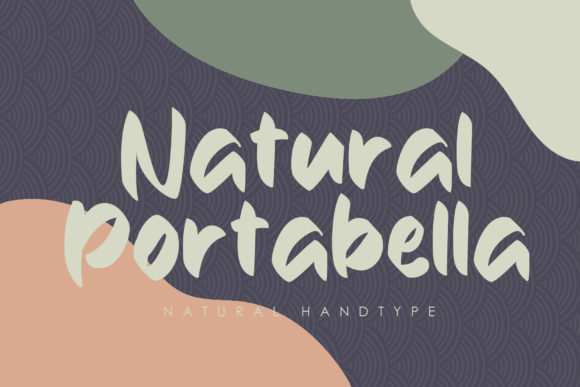
Step into the world of Natural Portabella, a captivating display font crafted by the ingenious minds at Eifets. This extraordinary font emanates an aura of casual friendliness, inviting you to delve into a realm of creative possibilities.
With its effortless readability and playful charm, Natural Portabella is the ideal font to breathe life into your artistic endeavors. Whether you're a seasoned designer seeking to elevate your digital creations or a crafting enthusiast seeking a font that resonates with warmth, Natural Portabella has the power to transform your visions into tangible masterpieces.
Picture this: a handmade greeting card adorned with heartfelt messages, rendered in the enchanting strokes of Natural Portabella. Your words dance across the paper, carrying sentiments of love, friendship, and joy. The font's inherent charm adds a personal touch, making each card a unique expression of your emotions.
Or perhaps you're a digital artist, weaving intricate designs and captivating visuals. Natural Portabella becomes your trusted companion, effortlessly adapting to your creative style. Its versatility knows no bounds, whether you're crafting logos that demand attention, designing social media graphics that pop, or creating presentations that leave a lasting impression.
The world of Natural Portabella extends beyond the digital realm, beckoning you to explore its boundless potential in the world of physical creations. Imagine hand-painted signs, bursting with vibrancy and personality, beckoning customers to your charming storefront. Or envision personalized t-shirts, each one a canvas for your unique expression, spreading joy and individuality wherever they go.
Natural Portabella is more than just a font; it's an invitation to unleash your creativity, to embark on a journey where imagination knows no limits. Its casual elegance and disarming friendliness make it the perfect font for any occasion, any project, any dream. Embrace the allure of Natural Portabella, and let your creativity flourish!